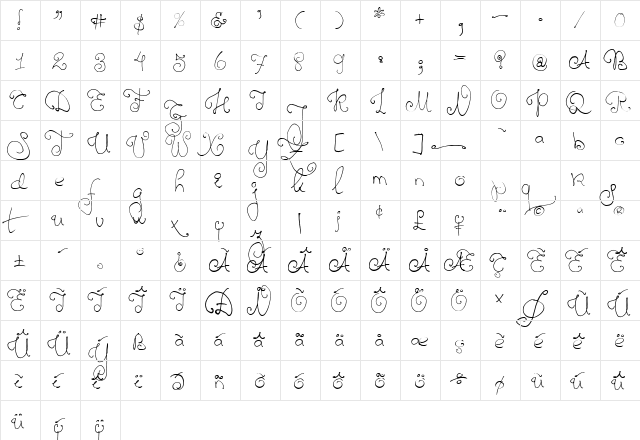
Twelve Weeks Pregnant Regular
| Foundry | David Kerkhoff |
| Designer | David Kerkhoff |
| Year | 2010 |
Design Context for Twelve Weeks Pregnant Typeface
Twelve Weeks Pregnant is a composed and adaptable typeface that performs quietly and consistently across a wide range of design contexts.